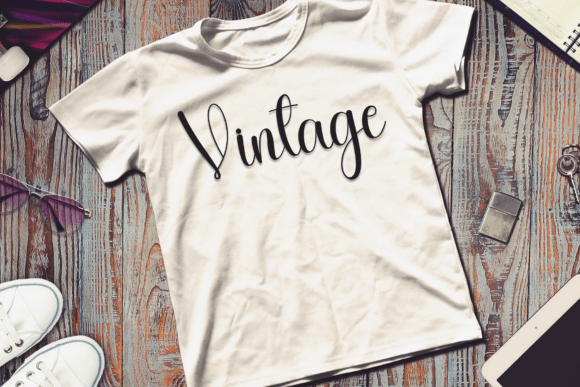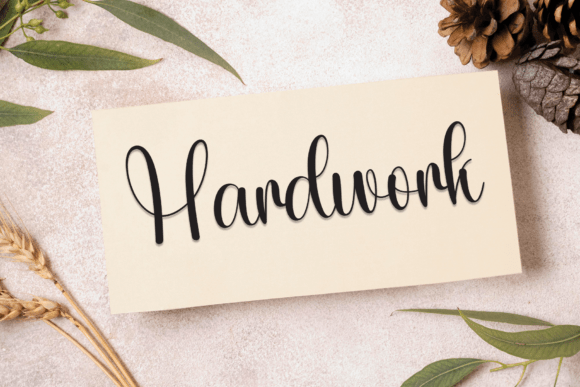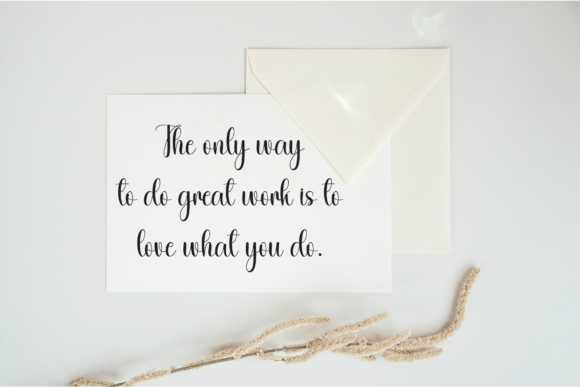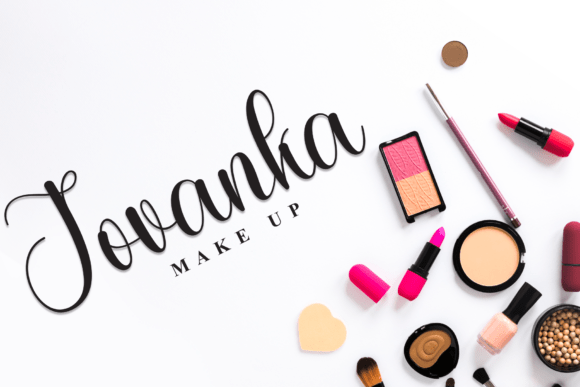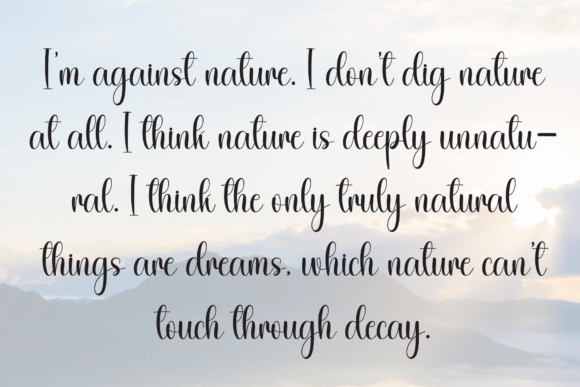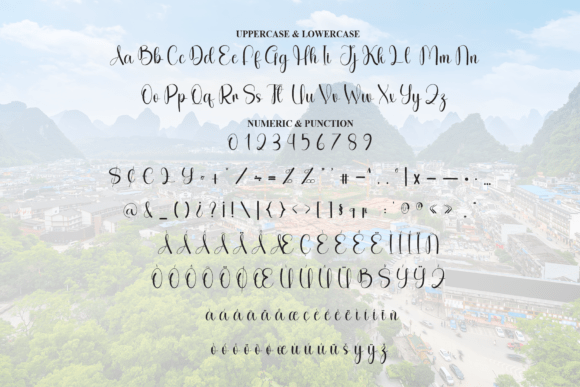
Introducing Sweet Scribbles: The Country Font that Adds a Touch of Whimsy to Your Designs
Welcome to the world of “Sweet Scribbles,” an alluring handwritten display font that personifies charm and warmth. Each stroke of this font delivers a delightful visual experience, injecting a playful character into your design. Its refreshing aesthetics shine brightly when embellishing wedding invitations, creating unique greeting cards, or bringing an unexpected sprinkling of happiness into any design narrative.
Sweet Scribbles is more than just a font – it’s an experience. Its carefully crafted letters are designed to evoke a sense of nostalgia and playfulness, making it the perfect addition to any design project. Whether you’re a designer looking to add a personal touch to your work or a crafter seeking to create unique and eye-catching materials, Sweet Scribbles is the perfect choice.
What Makes Sweet Scribbles Special?
- Handwritten with love: Each letter in Sweet Scribbles is carefully handwritten to give it a personal and unique feel.
- Playful and whimsical: The font’s playful character makes it perfect for designs that require a touch of whimsy and fun.
- Versatile: Sweet Scribbles can be used for a wide range of design projects, from wedding invitations to greeting cards, and even social media graphics.
Illuminating Your Creative Journey with Sweet Scribbles
Illuminate the canvas of your creative journey with Sweet Scribbles, a font that effortlessly knots fun and frolic with every letter crafted. Whether you’re working on a wedding invitation, a greeting card, or a social media graphic, Sweet Scribbles is the perfect choice. Its unique and playful character will add a touch of personality to your design, making it stand out from the crowd.
Design Ideas with Sweet Scribbles
Sweet Scribbles is a versatile font that can be used for a wide range of design projects. Here are some ideas to get you started:
- Wedding invitations: Add a touch of whimsy and romance to your wedding invitations with Sweet Scribbles.
- Greeting cards: Create unique and eye-catching greeting cards for special occasions like birthdays, anniversaries, and holidays.
- Social media graphics: Use Sweet Scribbles to add a playful touch to your social media graphics, such as Facebook posts, Instagram stories, and Twitter headers.
- Stationery: Create custom stationery, such as notebooks, journals, and letterheads, with Sweet Scribbles.
Sweet Scribbles is a unique and playful font that’s perfect for designers and crafters looking to add a touch of whimsy to their designs. With its carefully crafted letters and versatile design, Sweet Scribbles is sure to illuminate your creative journey. So why wait? Download Sweet Scribbles today and let the magic begin!